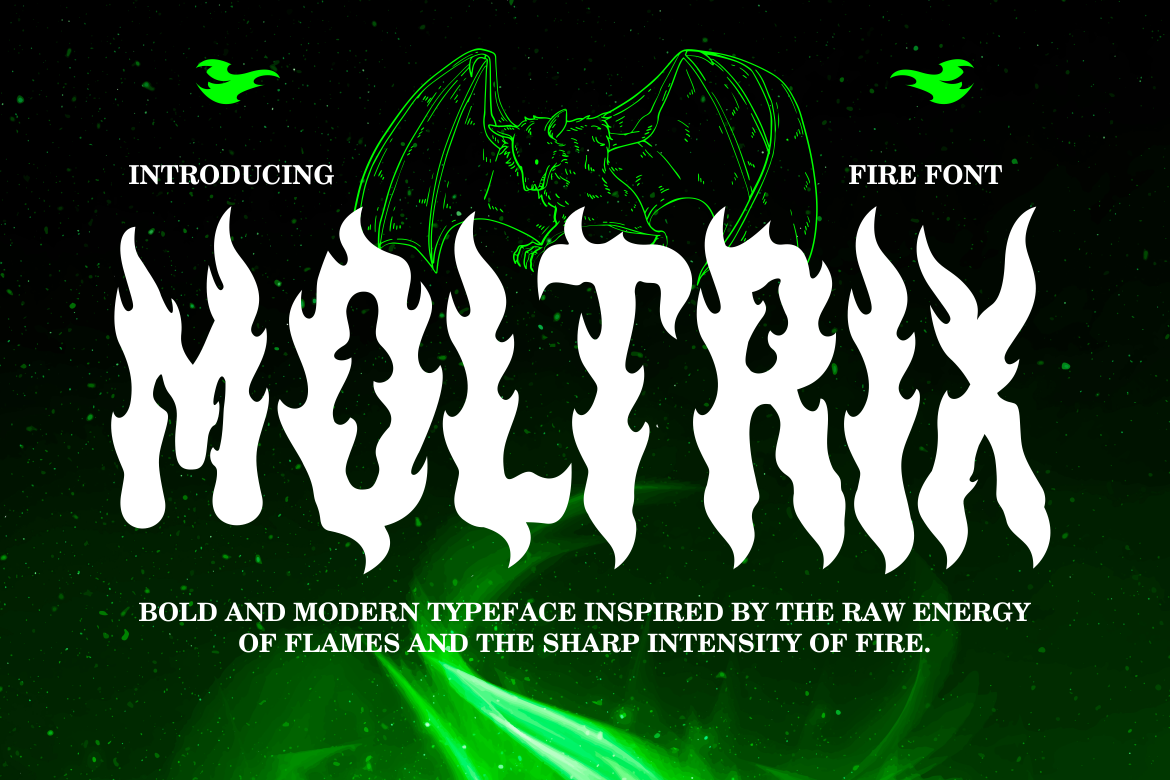
Moltrix Fire Font
Moltrix Fire Font is a bold display typeface that captures the raw essence of fire and flames. Each letter is crafted with sharp, fiery edges that create an intense visual impact. The strokes mimic blazing tongues of fire, giving the font a dynamic and untamed energy. Its white-hot forms stand out powerfully against dark or neon backdrops, while the jagged curves add drama and strength. The overall style is modern yet edgy, making it perfect for daring and fearless design projects.
This font is ideal for logos, branding, posters, and album covers that demand a bold statement. It works beautifully for horror titles, gaming projects, event promotions, and merchandise packaging. The strong layout style emphasizes contrast, ensuring your words never go unnoticed. Moltrix Fire Font blends energy, darkness, and creativity, making it a must-have for designers who want their text to radiate power.